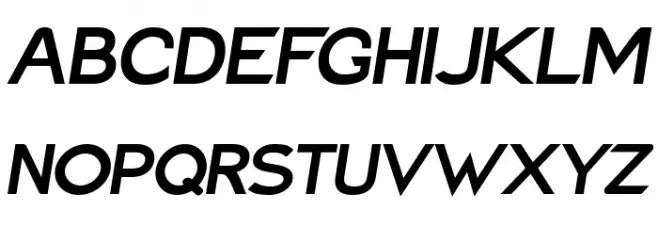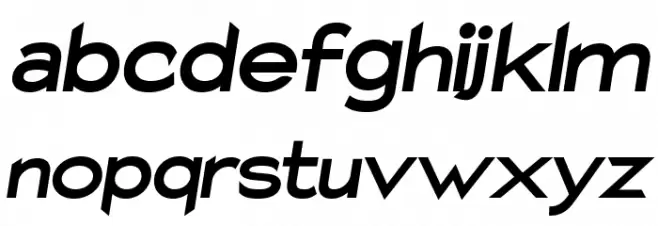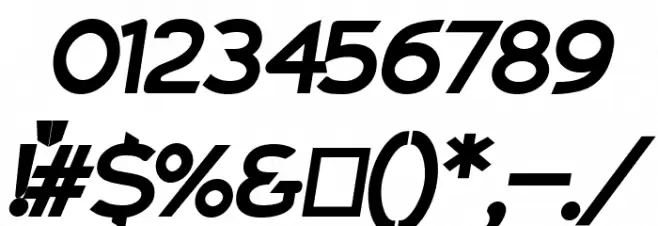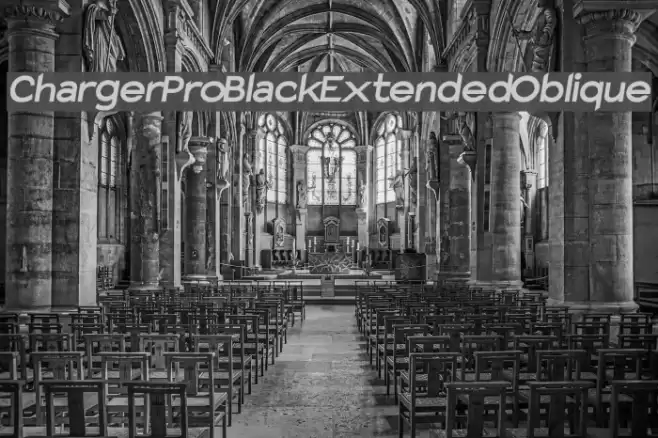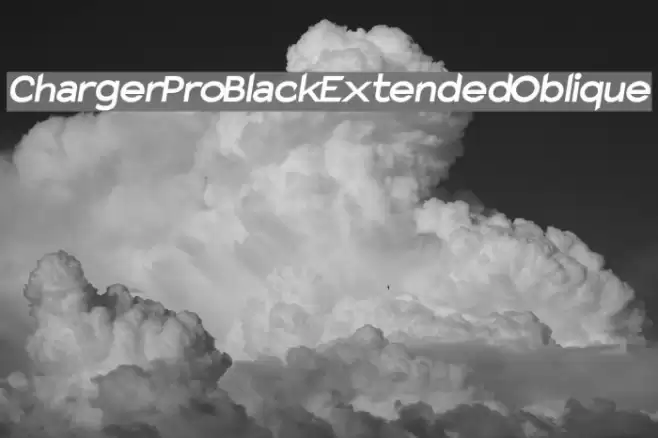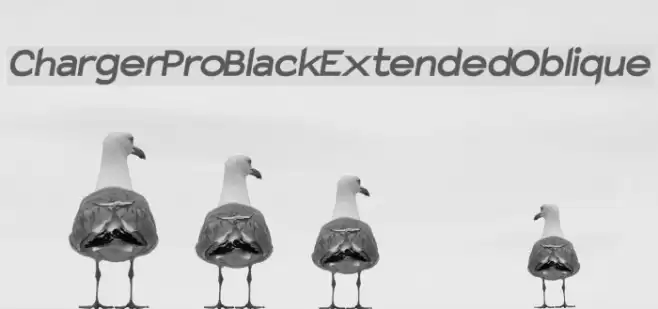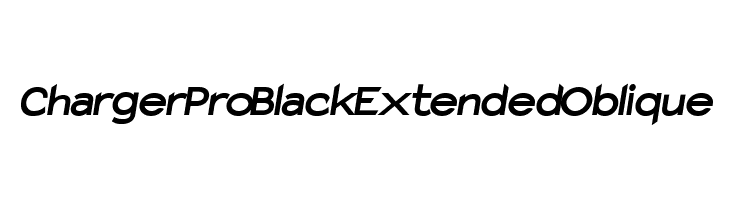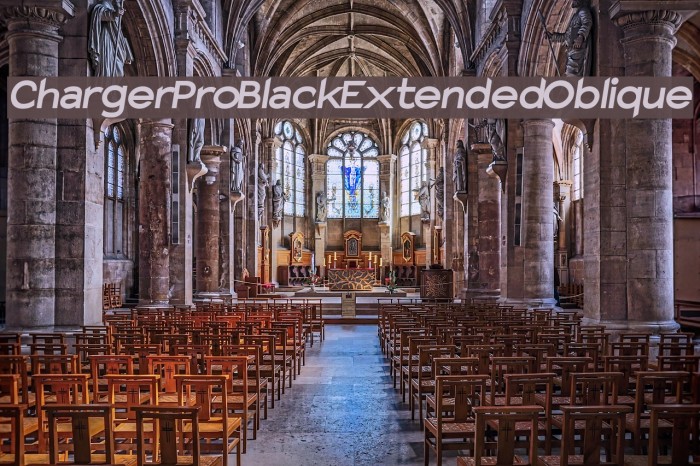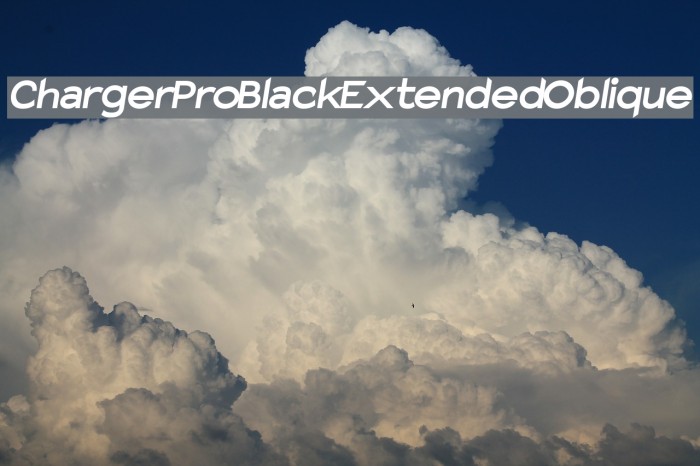
Charger Pro Black Extended Oblique
This font features a bold and dynamic style with an oblique orientation, giving it a sense of movement and energy. The characters are extended, providing a wide and spacious appearance. The strokes are thick and consistent, contributing to a strong visual impact. The design is modern and sleek, making it suitable for contemporary projects. The uppercase and lowercase letters maintain a uniform style, while the numerals and special characters are clearly defined and easy to read. This font's boldness and oblique slant make it stand out, ideal for attention-grabbing headlines or branding.
A bold, oblique, and extended font with a modern and dynamic style.
- Proposed Projects: Ideal for branding, advertising, headlines, and any project requiring a strong and modern visual impact.
- Width: Expanded
- Use Case: Headlines, Logos, Branding